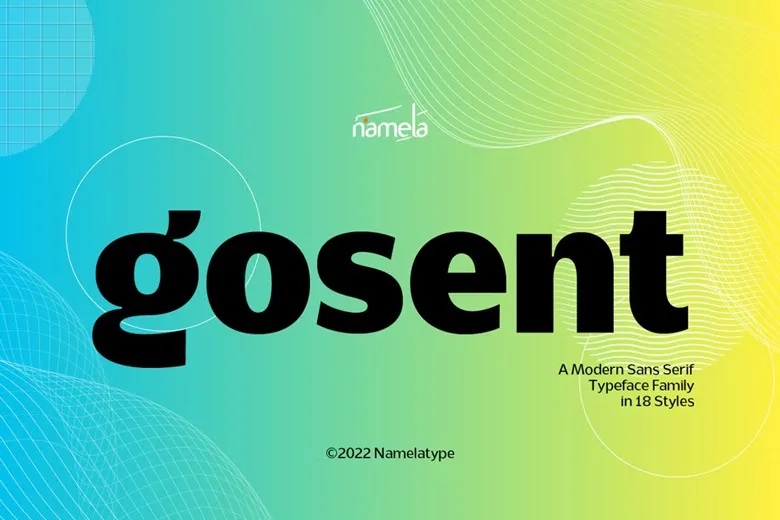
Gosent Font
Gosent typeface is a sans serif design typeface that has been designed and constructed with immense care to draw attention. Due to its high x-height it performs well at small sizes, being highly legible and readable. This font is perfect in terms of contrast which is not very high and makes it look classy but it is easily readable. What characterizes the distinguishability of Gosent Font are those peculiar stylistic features such as the unconventional ink trap, which adds today-like touch into each form of the characters.
This together makes Gosent Font a basic font style and suitable for any and all spectrums of design such as serious professional to a jovial creative.For the Gosent font family we have a total of 9 weight styles ranging from Thin to Black and each having its own oblique style.
Gosent Font is an amazing tool for branding, editorial, and any creative project, as they are willing to complement your designs with their intuitive and fresh looks.